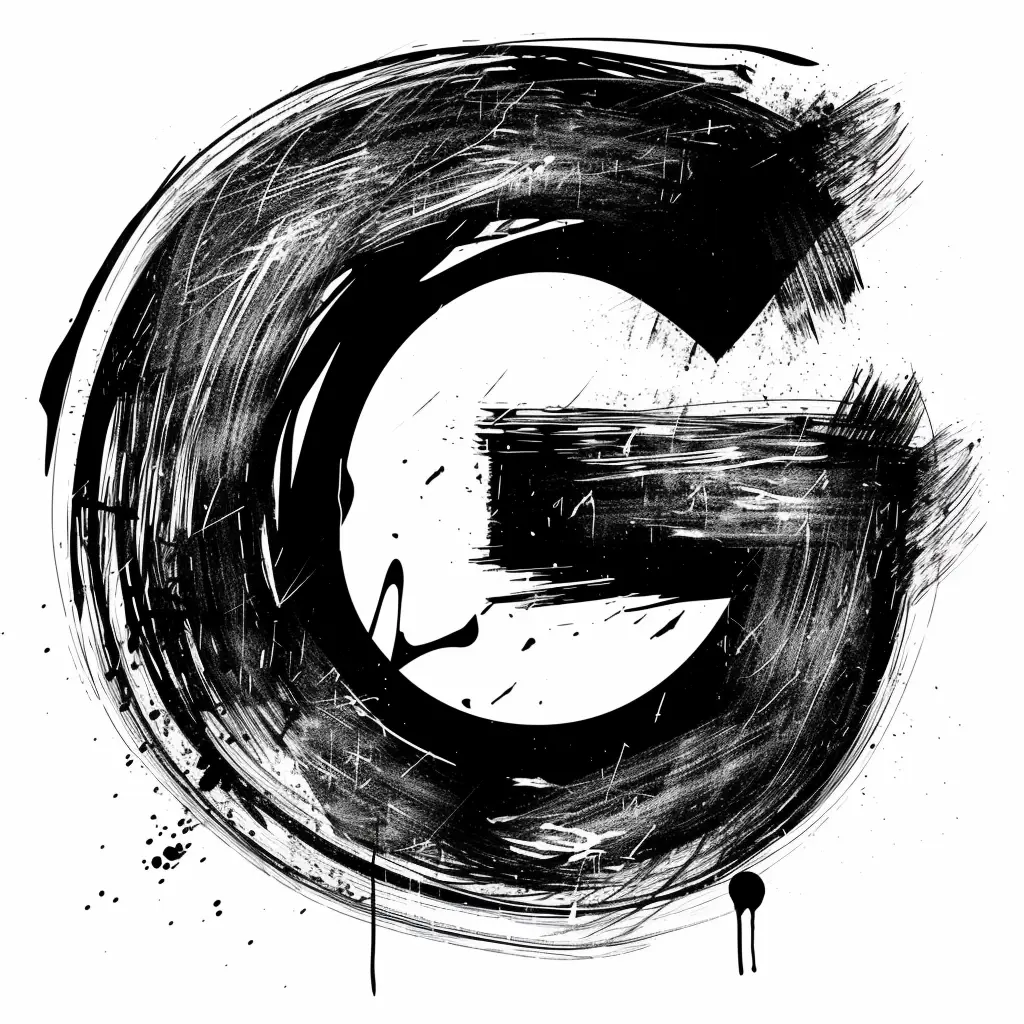
This image features a stylized, hand-drawn letter "G" rendered in bold black brushstrokes against a white background. The design has a rough, textured, and artistic feel, with visible brush marks, splatters, and drips that add a dynamic, expressive quality. The high-contrast black-and-white color scheme emphasizes the letter’s bold, circular form and the raw, painterly style of the artwork.